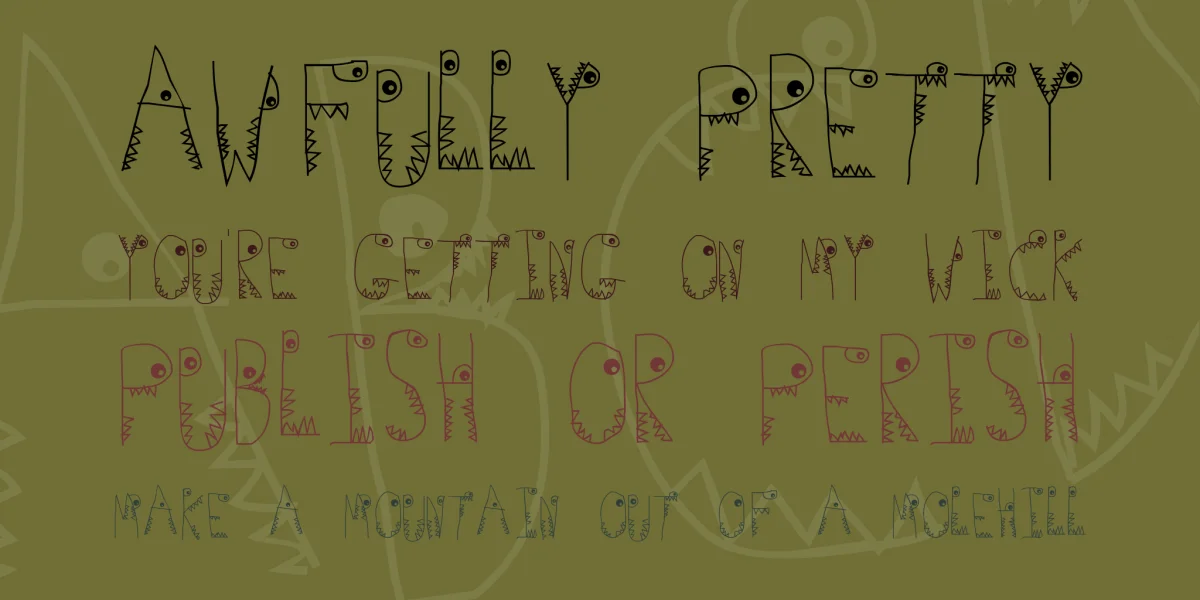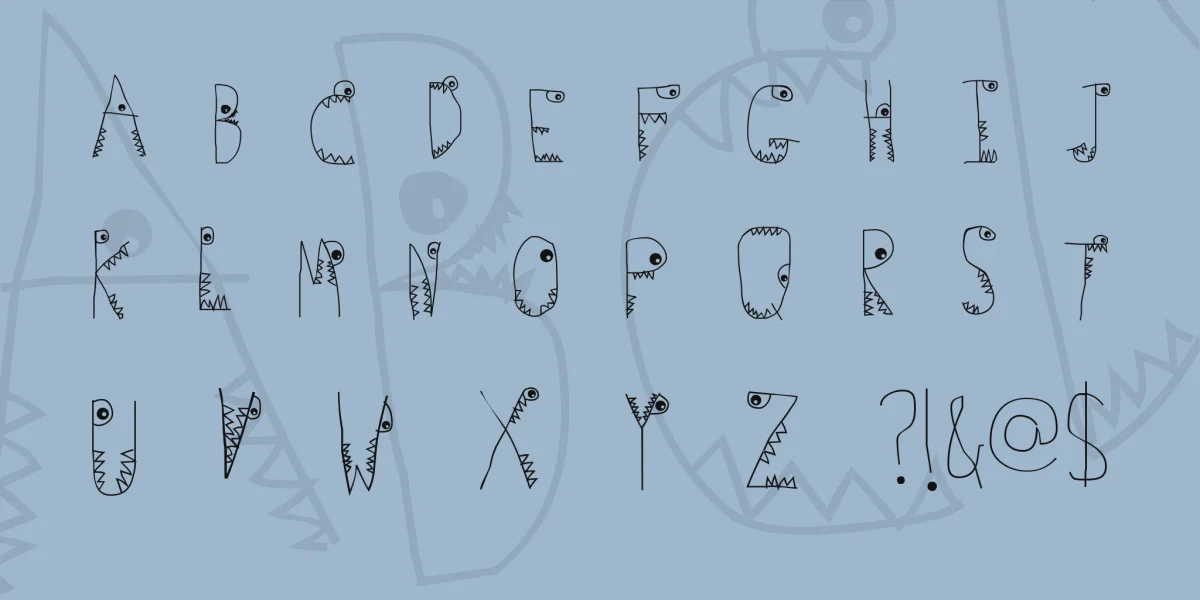
(Caps, most punctuation) is a typeface I used to draw all the time when I was a kid -- each of the letters is made into a monster with sharp ravenous teeth and a glaring eye (sort of). Only really suitable for headlines; it is caps only and the font is difficult to read when small.